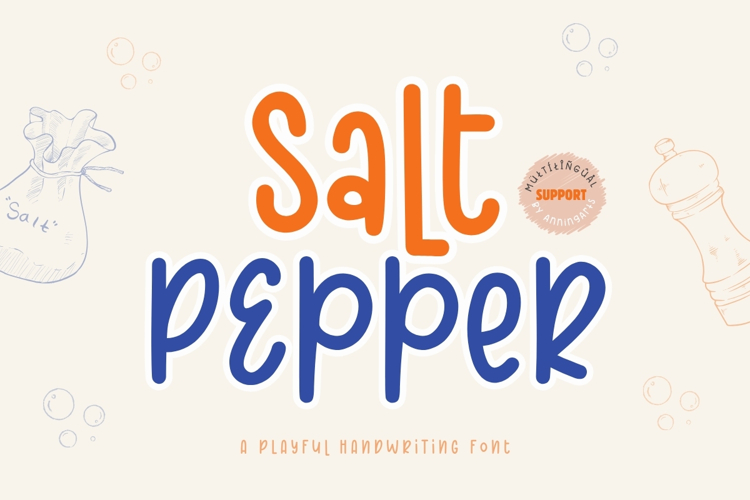
Salt Pepper is a playful handwritten display font with a tall, clean, and friendly style. Its casual look makes it perfect for everyday creative projects, classroom materials, food branding, summer designs, greeting cards, and handmade products.